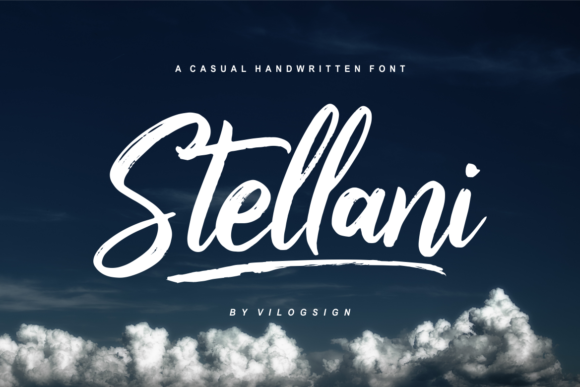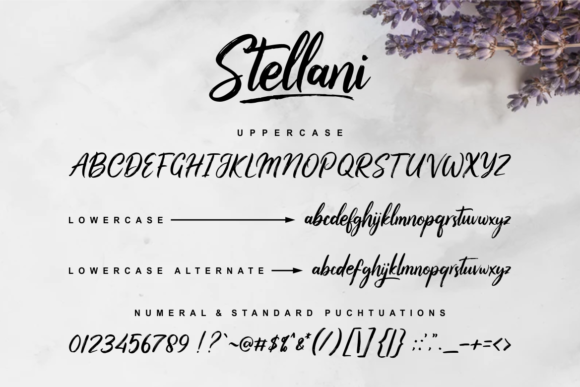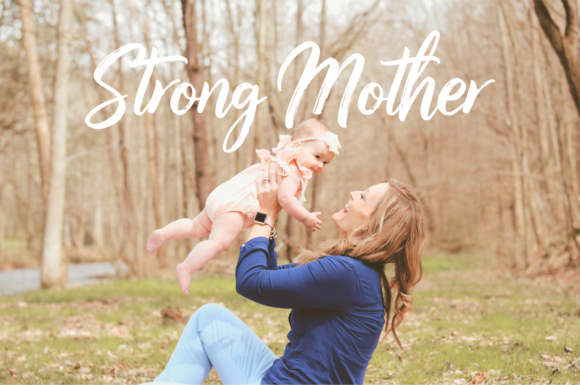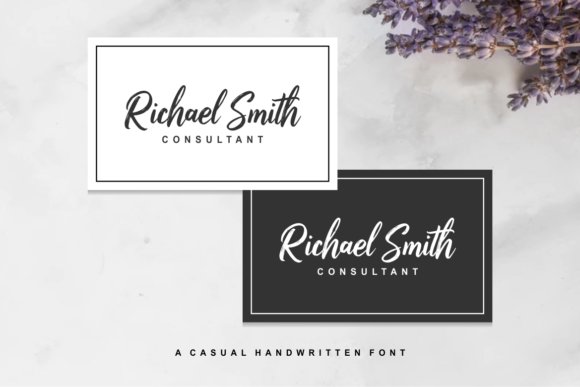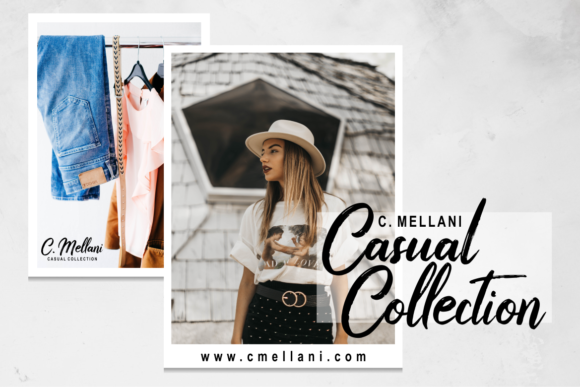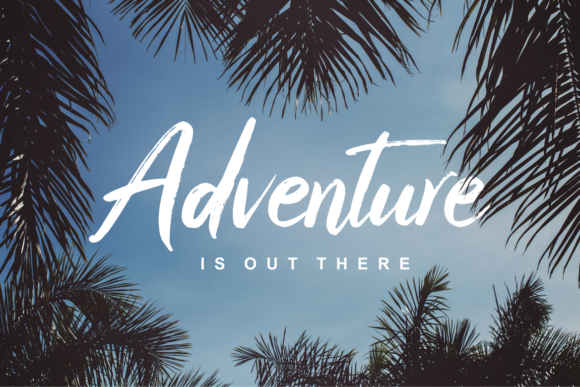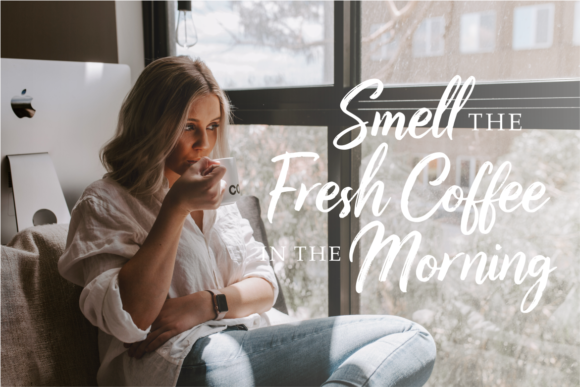
Stellani Font
About Stellani Font
Stellani is a playful and cool handwritten font with a modern twist. Use it to turn any design idea into a standout!